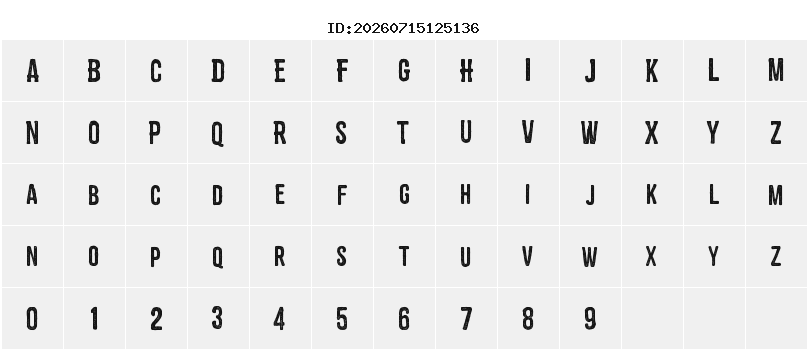
ZEMBOOD Preview
• Font Name: ZEMBOOD
• Full Font Name: ZEMBOOD
• Version: Version 1.00 February 12, 2016, initial release
• Character Count: 242
About ZEMBOOD.ttf
ZEMBOOD.ttf is a modern, elegant sans-serif font designed for ultimate readability and visual harmony. Perfect for branding, headlines, web design, and print materials.